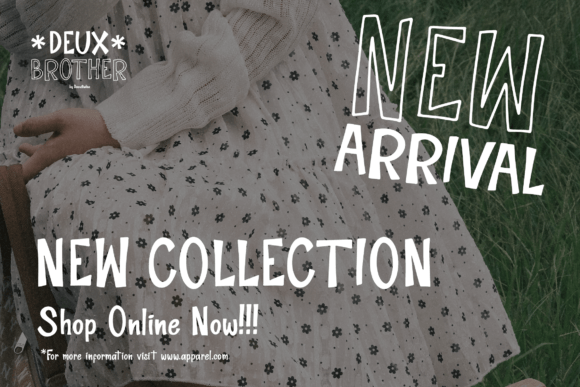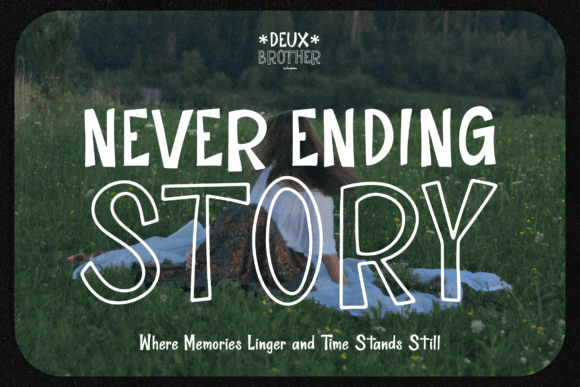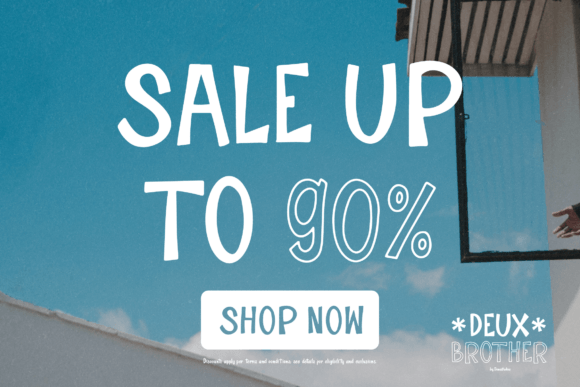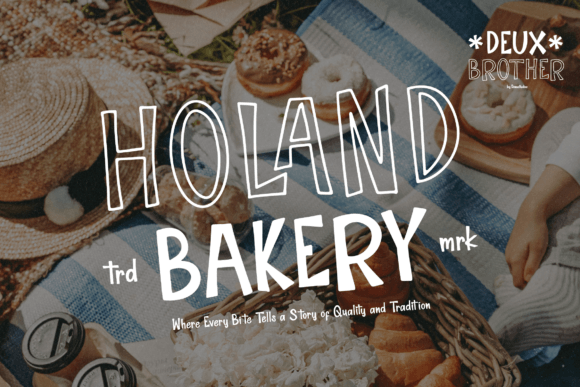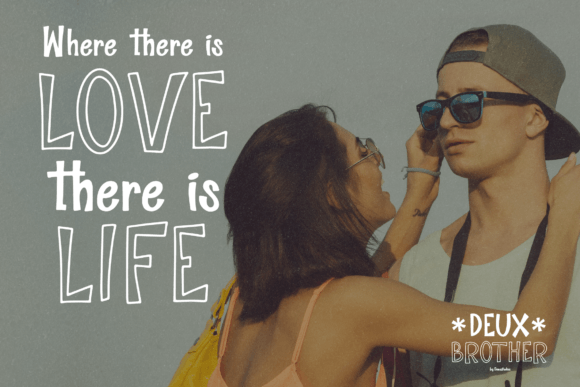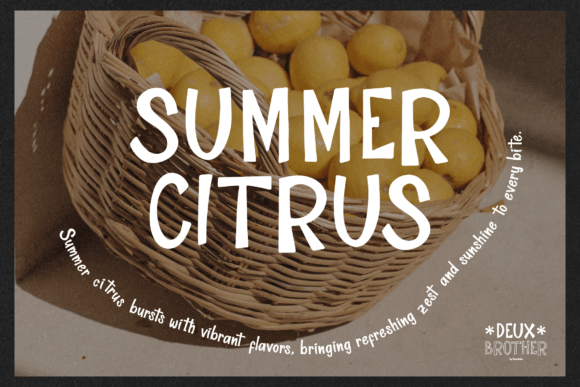
The Sweet Charm of Deux Brother Font: A Designer’s Delight
I’ll never forget the time I was working on a branding project for a cozy home decor client. I had nailed the color palette and overall aesthetic, but something was missing – the perfect font. That’s when I stumbled upon Deux Brother Font, a sweet and friendly handwritten font that instantly elevated my design. If you’re a designer, crafter, or creative hobbyist looking for a fun and versatile font, you’re in luck! In this article, we’ll dive into the world of Deux Brother Font and explore its features, uses, and alternatives.
An Honest Review of Deux Brother Font
- ✨ Sweet and friendly vibe that’s perfect for a wide range of projects
- 🎨 Beautifully crafted with a personal touch
- 🤝 Works well with both digital and print designs
While Deux Brother Font is an excellent choice, there are a few things to keep in mind:
- ⚠️ May not be suitable for very formal or corporate designs
- 🤔 Limited availability of stylistic alternates, but still offers a range of OpenType features
A Practical Guide to Using Deux Brother Font
- Experiment with OpenType features, such as ligatures and stylistic alternates, to add visual interest
- Explore the font’s glyphs and stylistic alternates to add a personal touch to your design
- Use the font’s OpenType features, such as ligatures and stylistic alternates, to enhance your document
Alternatives to Deux Brother Font
If you love Deux Brother Font but want to explore other options, here are a few alternatives to consider:
- Pacifico: A beautiful, modern script font with a friendly vibe
- Great Vibes: A fun, handwritten font with a lively personality
- Lobster: A elegant, cursive font with a sophisticated feel
- Carolyna Pro: A sweet, handwritten font with a whimsical touch
The Story Behind Deux Brother Font
Deux Brother Font was designed with love and care by a talented font creator who wanted to craft a font that would bring joy and personality to designs. The font’s sweet and friendly vibe makes it perfect for a wide range of projects, from logos and branding to homeware designs and product packaging.
Q: What type of projects is Deux Brother Font suitable for?
A: Deux Brother Font is perfect for logos, branding projects, homeware designs, product packaging, mugs, quotes, posters, shopping bags, t-shirts, book covers, name cards, invitation cards, greeting cards, labels, photography, watermarks, and special events.
Q: Is Deux Brother Font available in different languages?
A: Deux Brother Font may not support all languages, but it does offer a range of OpenType features and glyphs to enhance your design.